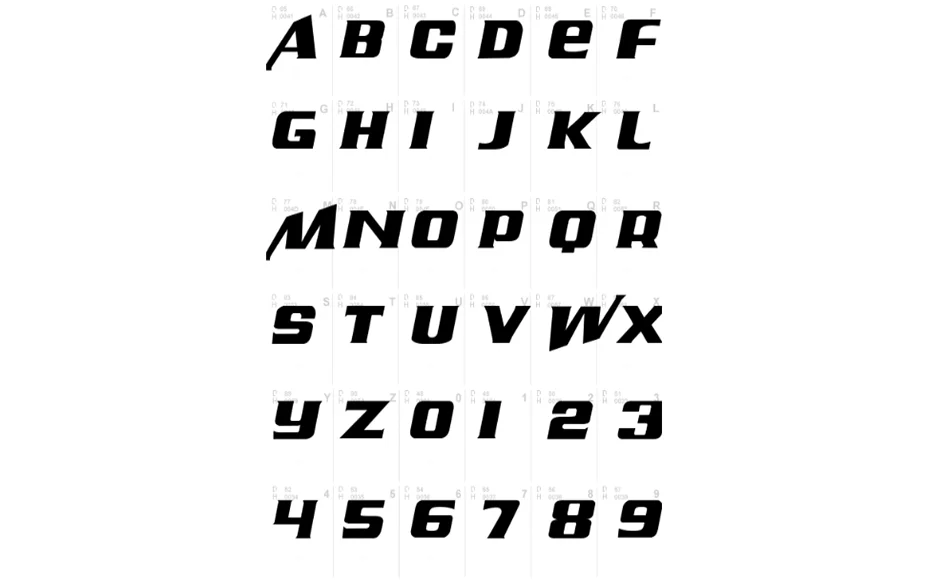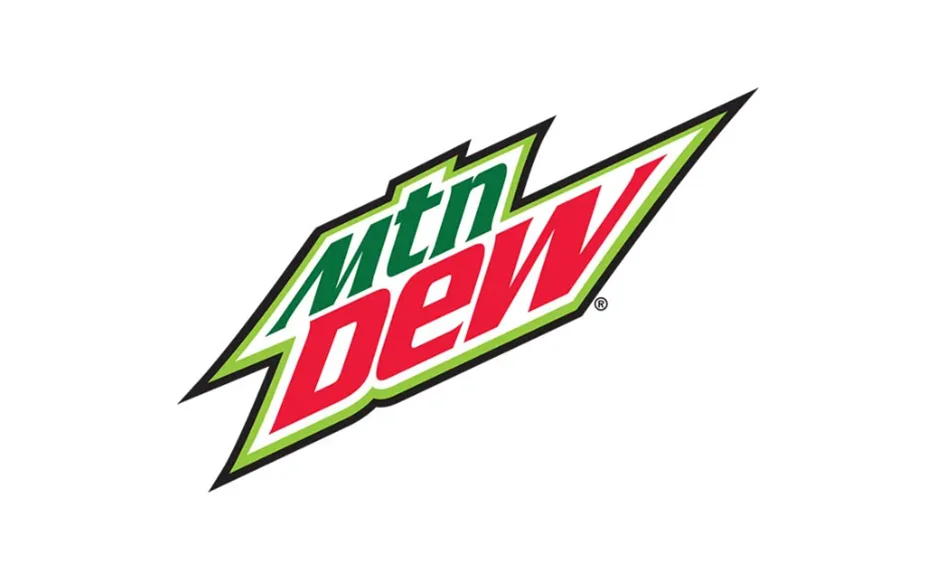
Introducing Mountain Dew Font! Basically, Mountain Dew is a carbonated soft drink brand produced and owned by PepsiCo.
The original formula was invented in 1940 by Tennessee beverage bottlers Barney and Ally Hartman.
This logo font is a playful typeface designed with thick letters. The font is bold and joyful, and it works great to make short fun titles.
Its texture has created in a unique way in which you will observe that the designer used bold strokes with sharp corners. And some letters have been made in an irregular way like M.
When you use these letters jointly in any design then they will work properly. So, this can give a cool effect in designs where applies.
You can use it in various projects like titles, banners displays, posters, logos, food, hoardings, drinks, cards, kid’s elements, advertisements, flyers, stationery, labeling, animated movie titles, and wherever you want.
Mountain Dew Font is contained in only a single style that possesses True Type features. You can use this font with other display typefaces.